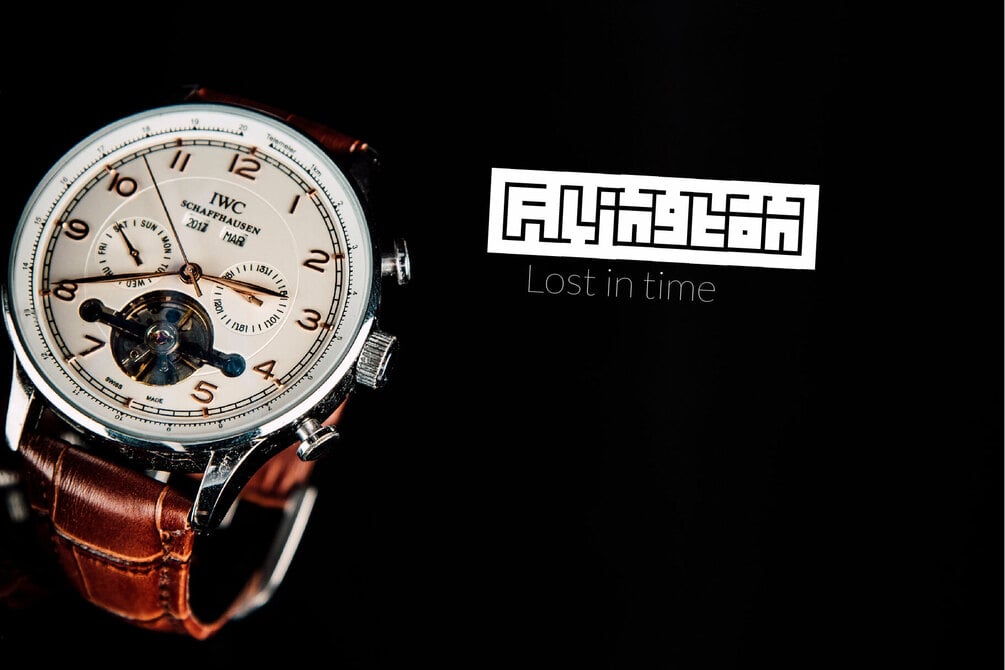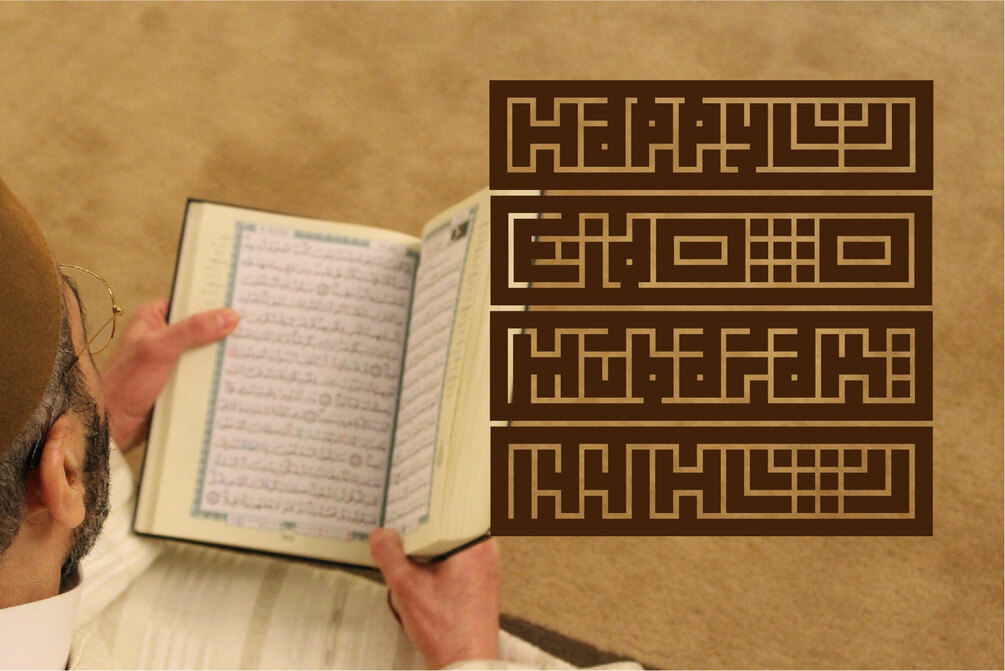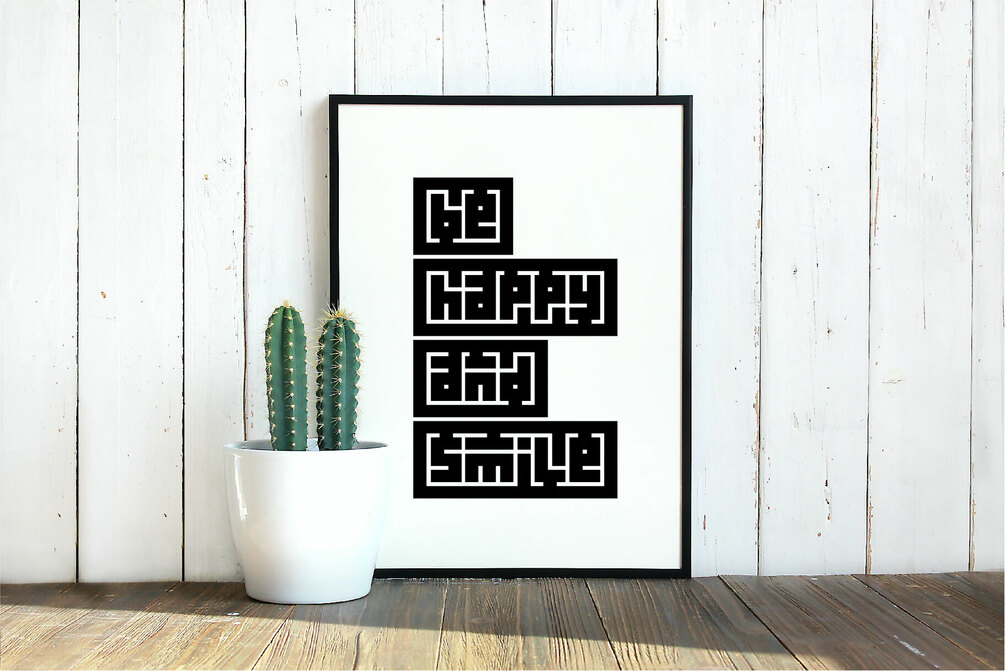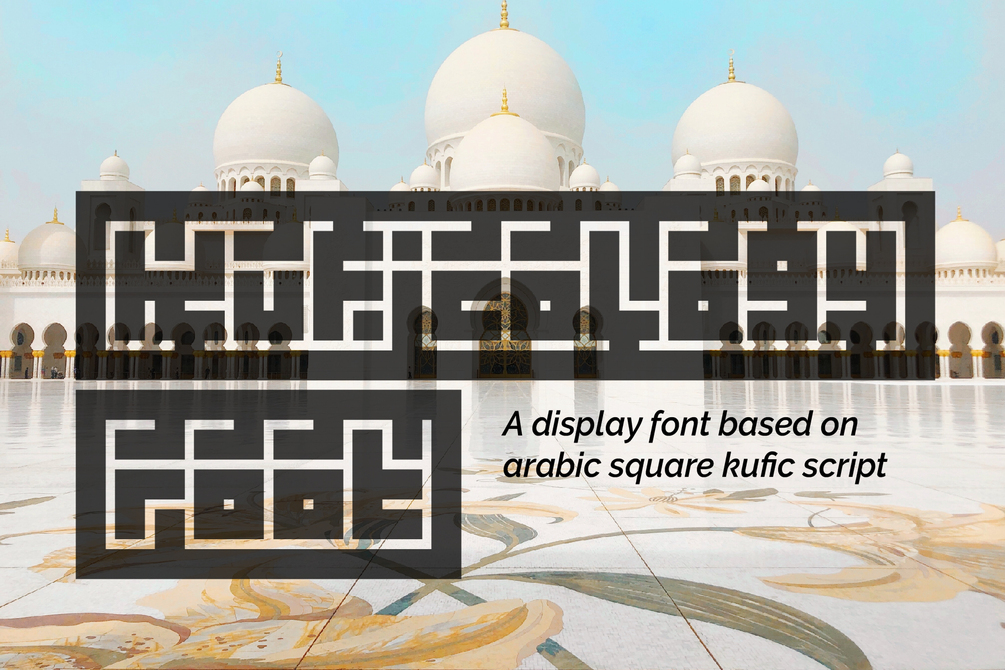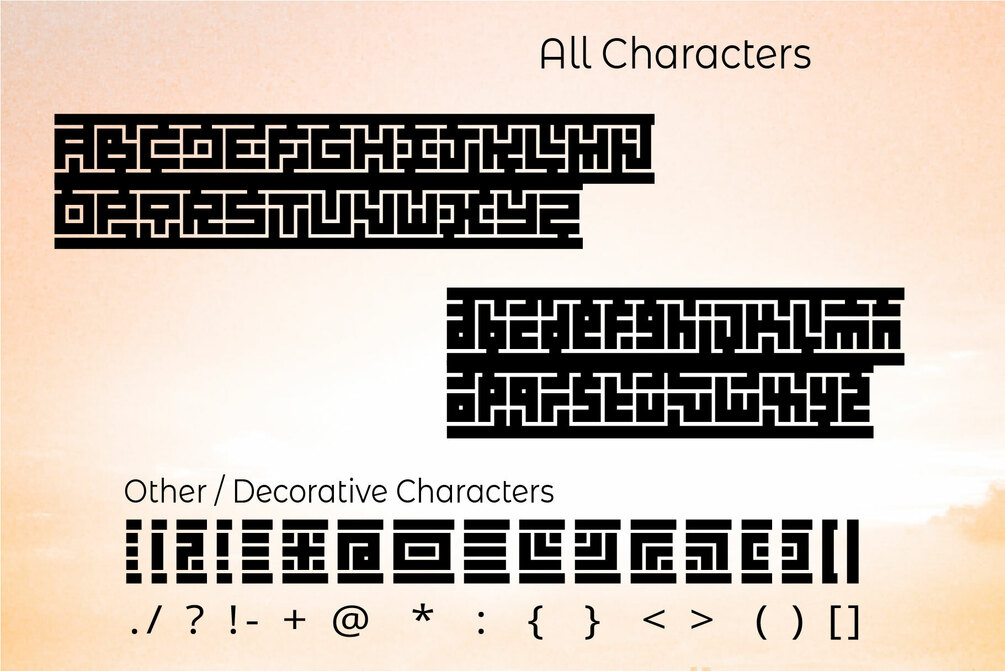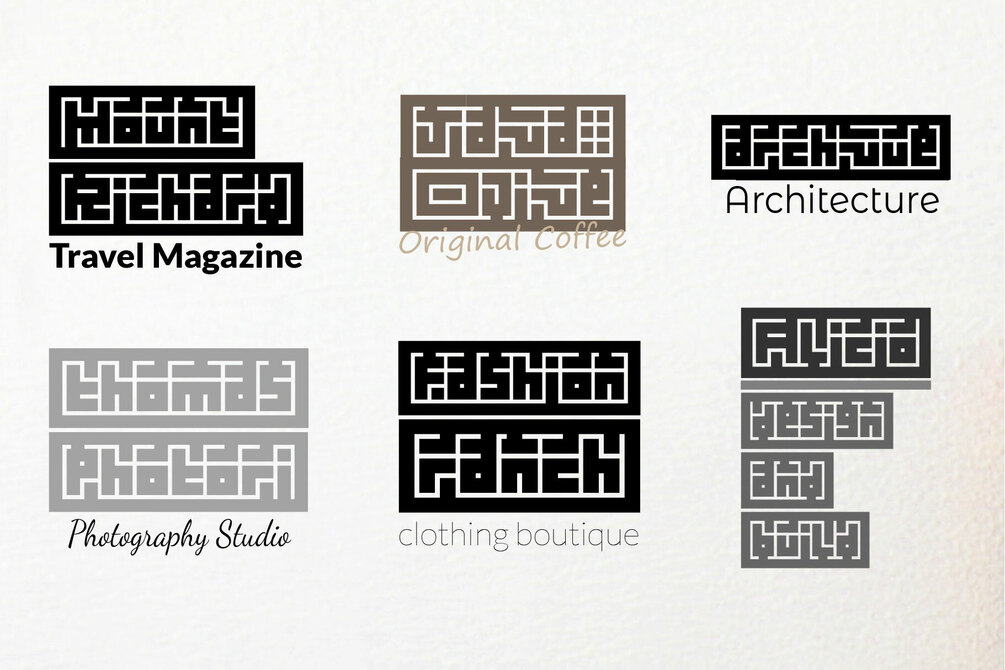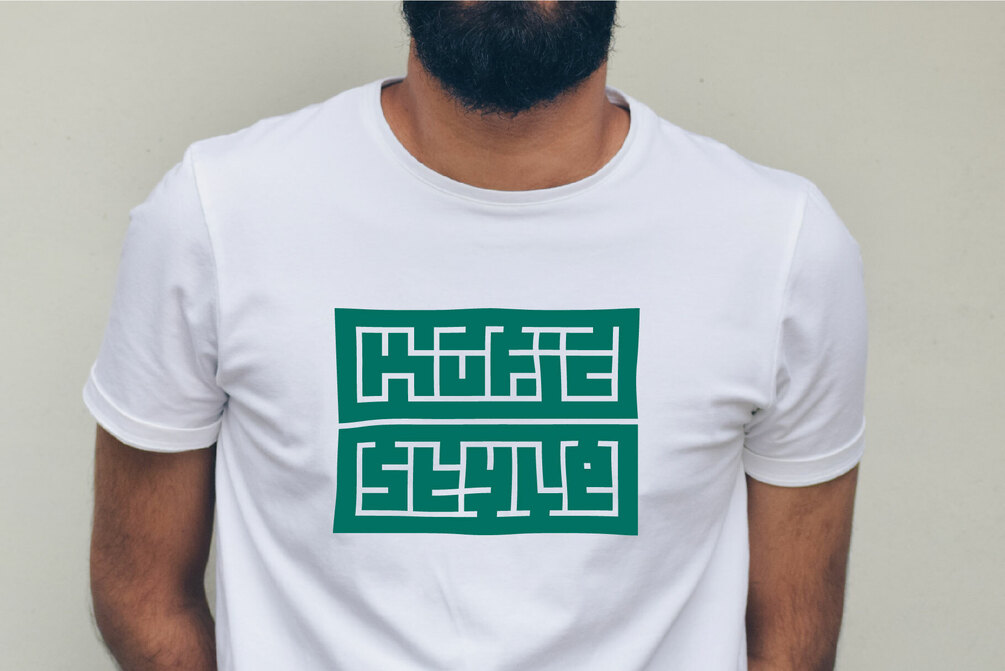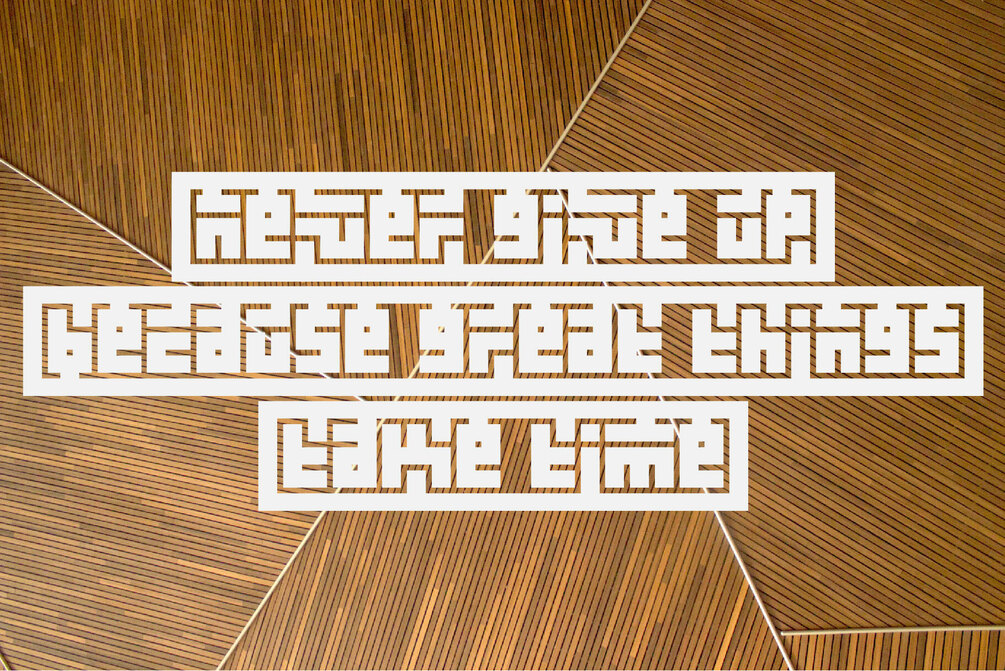
Kuficology Root - Condensed Kufi Style Latin Alphabet (Boxed)
Introducing Kuficology Root
A display font based on Arabic Square Kufic script
Kuficology Root is a font inspired by Arabic square calligraphy. It's great as logos for business and personal identity. Unique design for your business in a few seconds.
Kuficology Root gives an elegant and classic impression but is still modern with a straight square cut in each letter.
Kuficology Root is suitable for various themes, but more specifically in Islamic themes. Widely used by Muslims to create texts in latin with kufic calligraphy style.
This font is also perfect for quotes, headings, logos, invitations, social media posts, profile pictures, advertisements, product packaging, product designs, label, photography, watermark, special events and more!
Full characters include upper and lowercase, letters, numbers, symbols and several decorative characters.